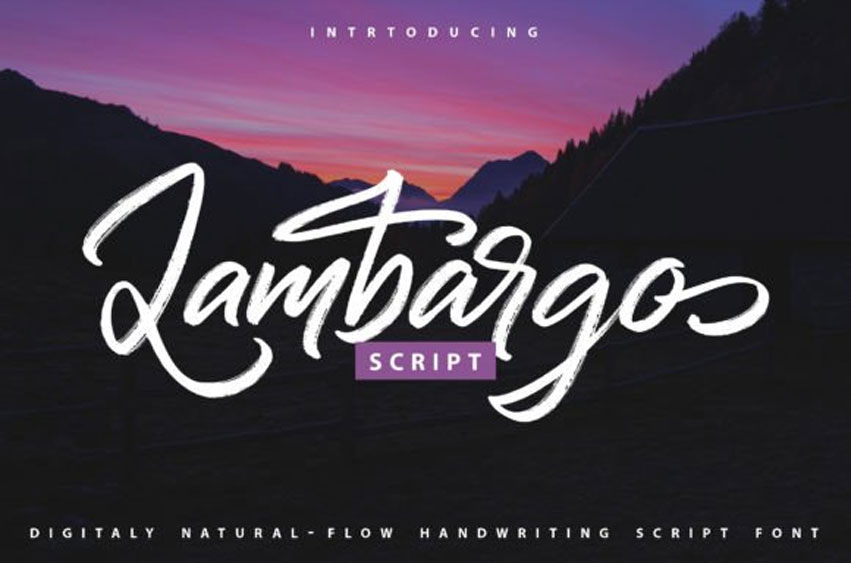
Lambargo Font is a flowing handwritten brush font, described by an elegant touch, perfect for your favorite projects.
Fall in love with its incredibly distinct and timeless style and use it to create spectacular designs!